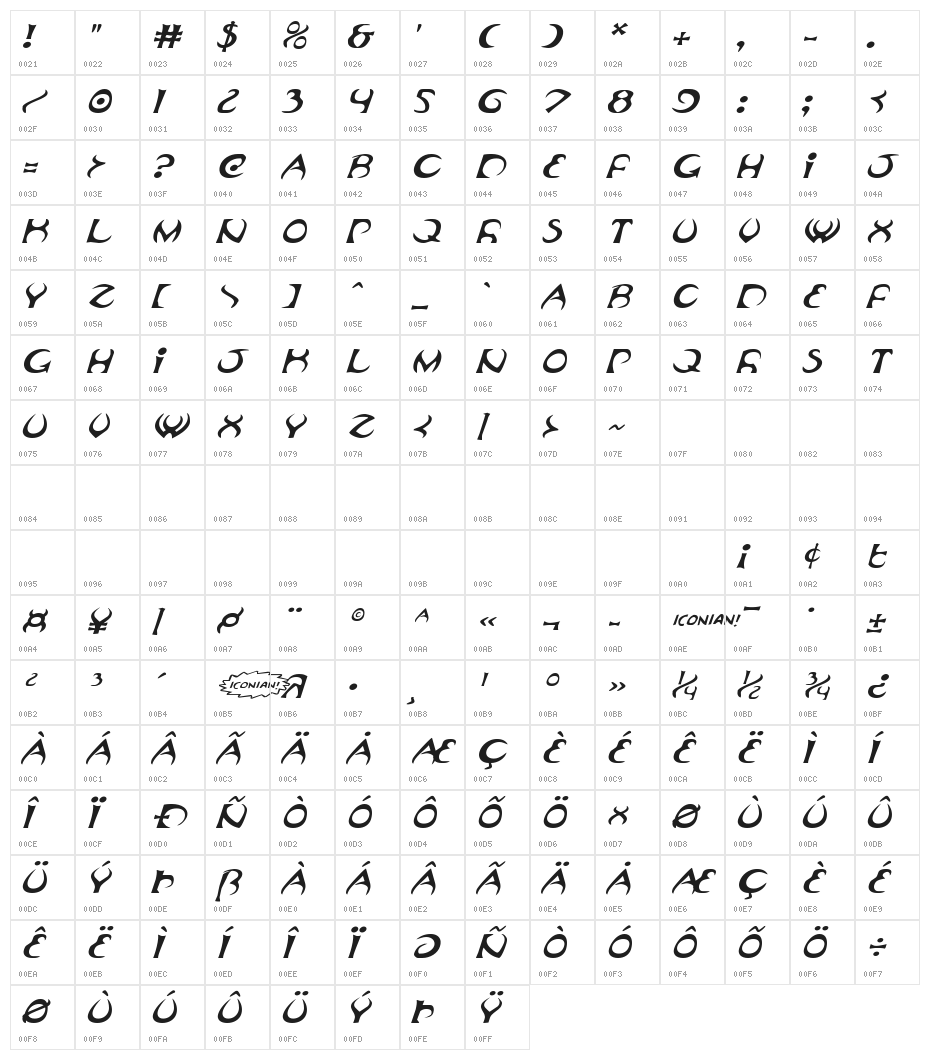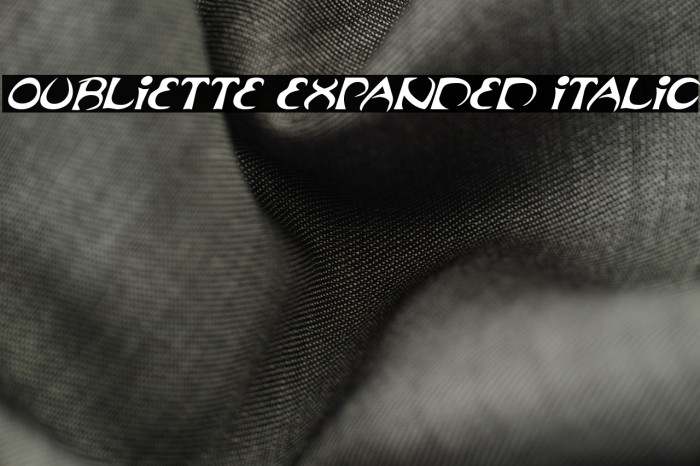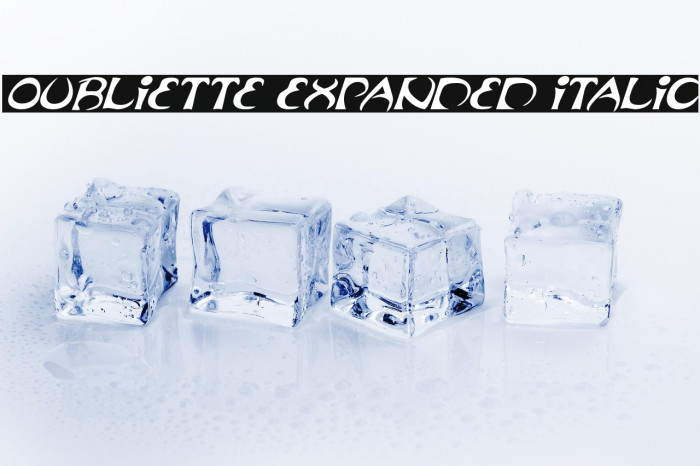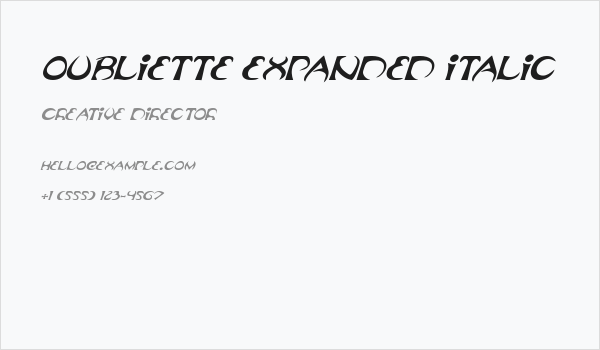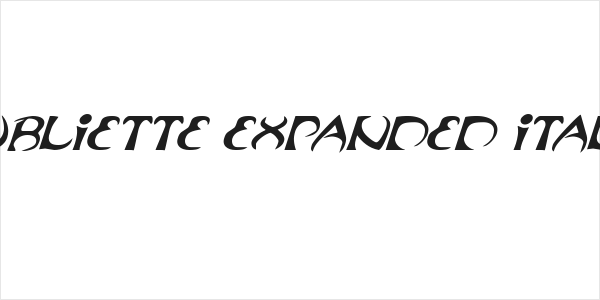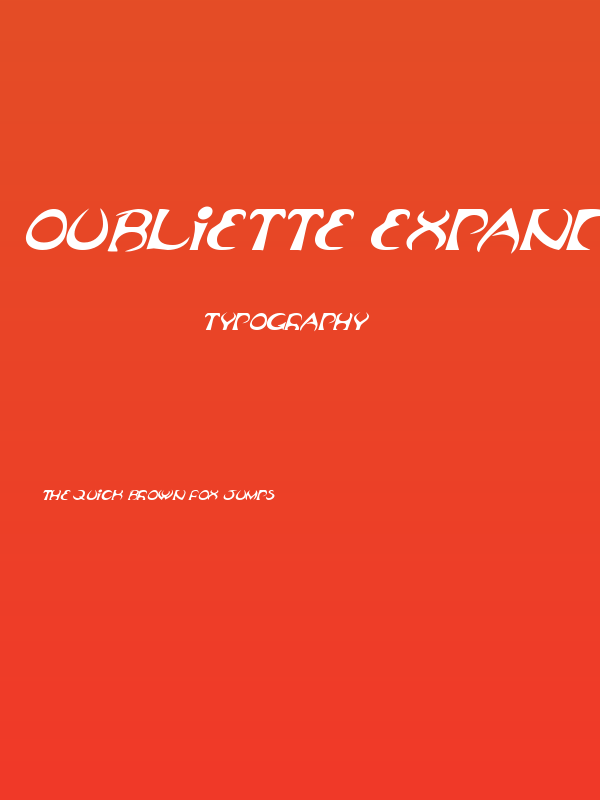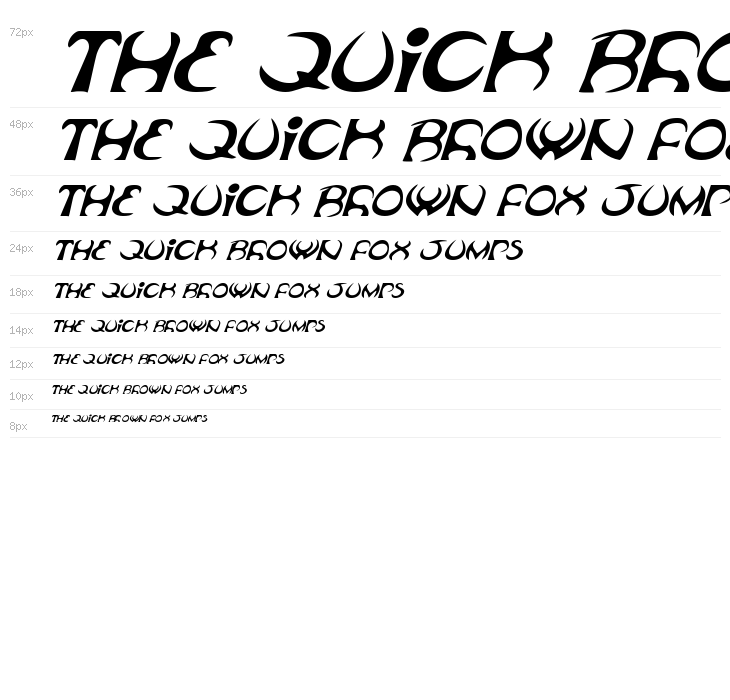
Oubliette Expanded Italic Font
Oubliette Expanded Italic Description
This font features a unique and artistic design with a strong emphasis on curves and fluidity. The characters are italicized, giving them a dynamic and forward-leaning appearance. The strokes are bold and have a high contrast, with thick and thin elements that create a striking visual impact. The expanded width of the letters adds to the overall dramatic effect, making it suitable for eye-catching designs. The font includes a full set of uppercase and lowercase letters, numbers, and a variety of special characters, all maintaining the same stylistic theme. Its decorative nature makes it ideal for projects that require a bold and artistic touch.